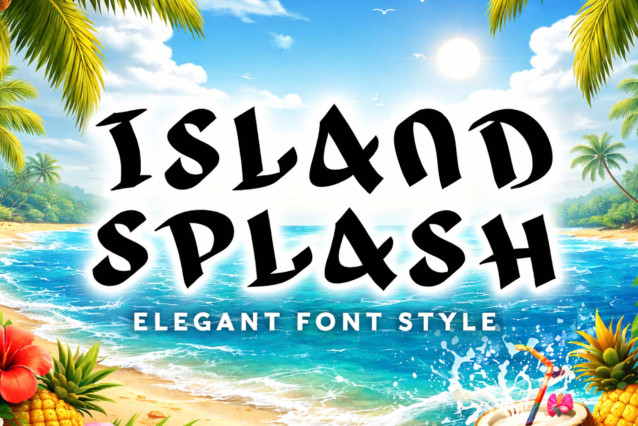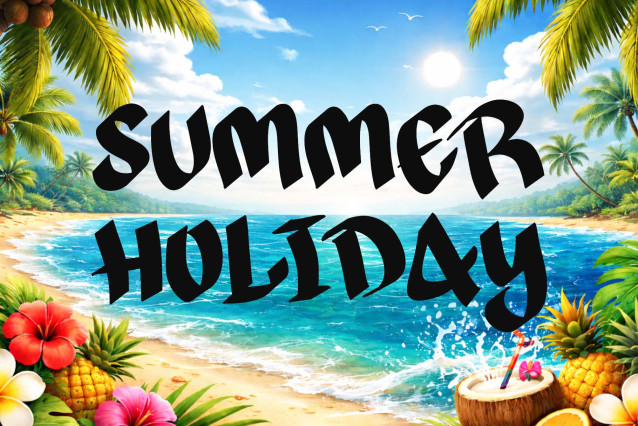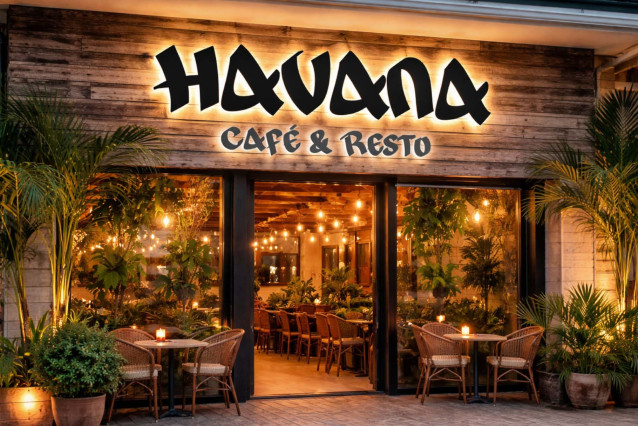
Island Splash Font
“Island Splash” is a fun display font. It features uppercase and lowercase letters, numbers, punctuation, and multilingual support. It’s perfect for action movie titles, Halloween, Christmas, Easter, spring and summer, banners, branding, stickers, logos, patriotic text, back to school text, business branding, screen printing, tshirt designs, and more.